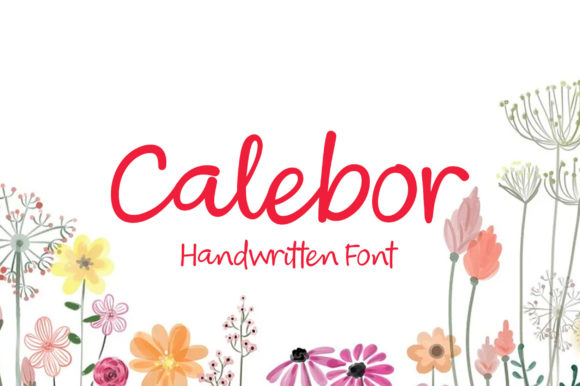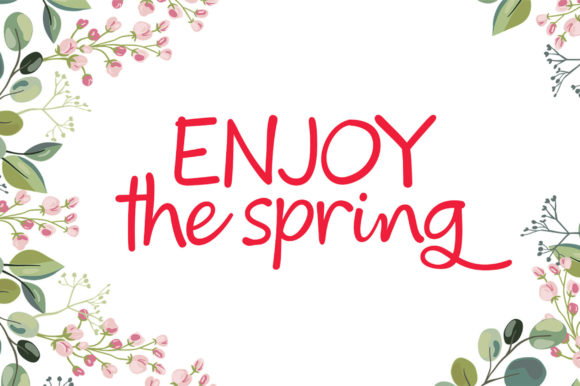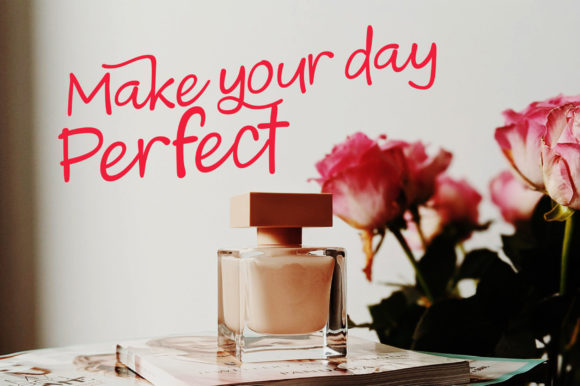
About Calebor Font
Calebor is a gorgeous yet quirky script font. Its natural and unique style makes it incredibly fitting to a large pool of designs. The only limit is your imagination!